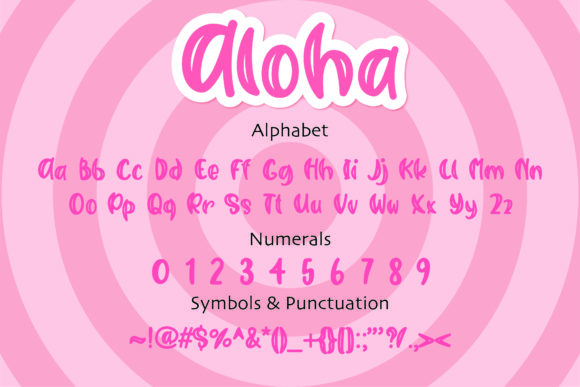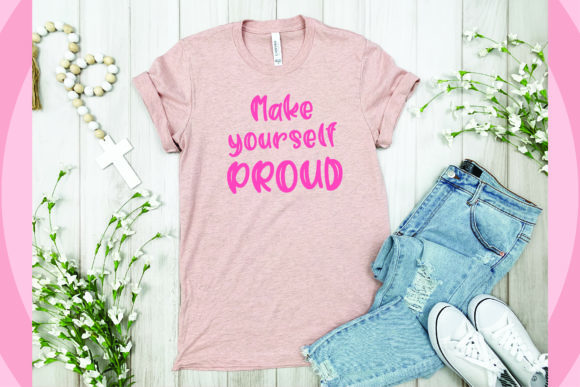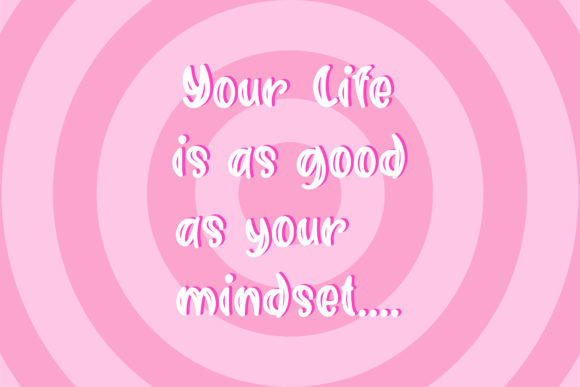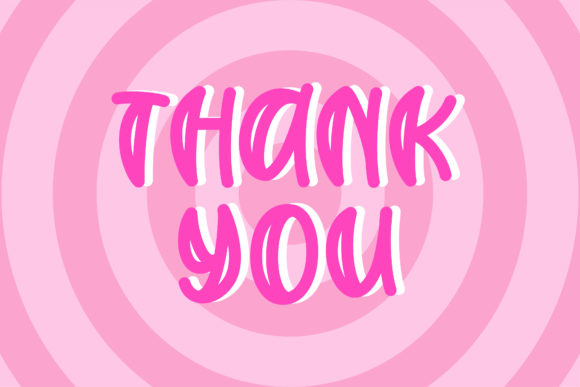
Aloha is a cute and friendly handwritten font. Its natural and unique style makes it incredibly fitting to a large pool of designs. It looks stunning on wedding invitations, thank you cards, quotes, greeting cards, logos, business cards, and every other design which needs a handwritten touch.